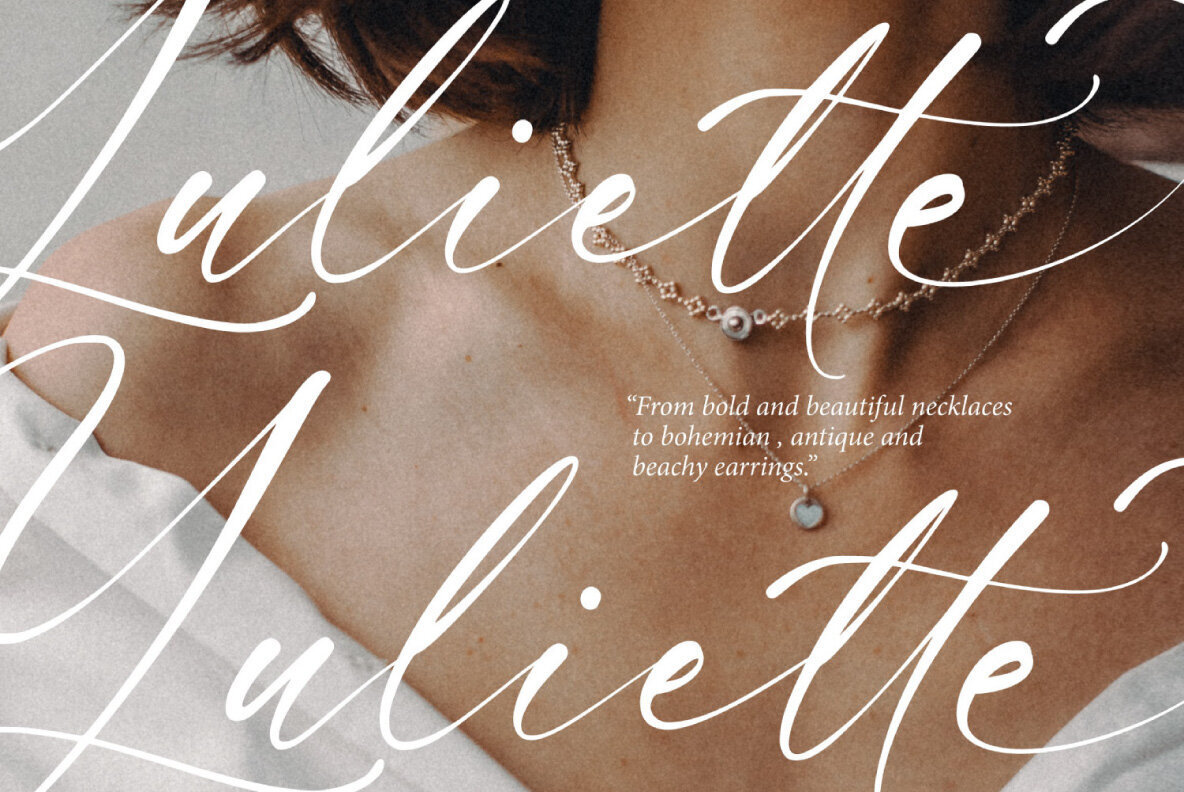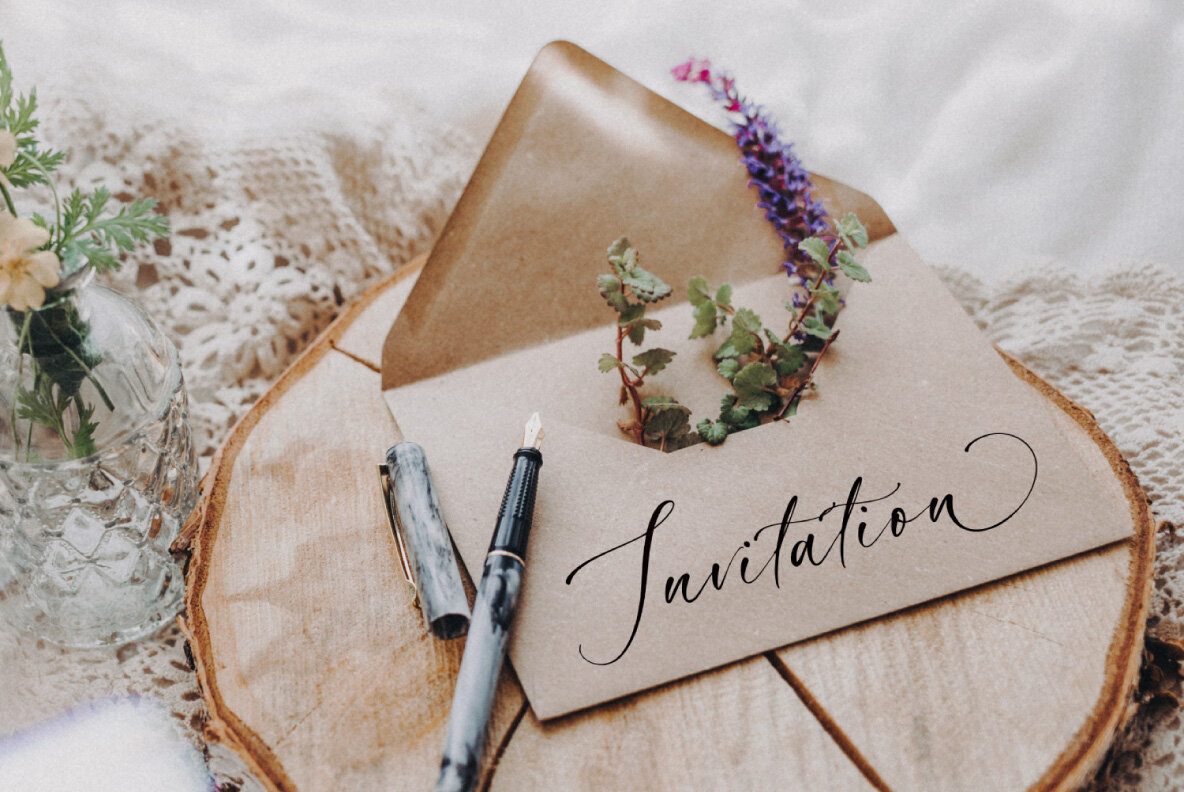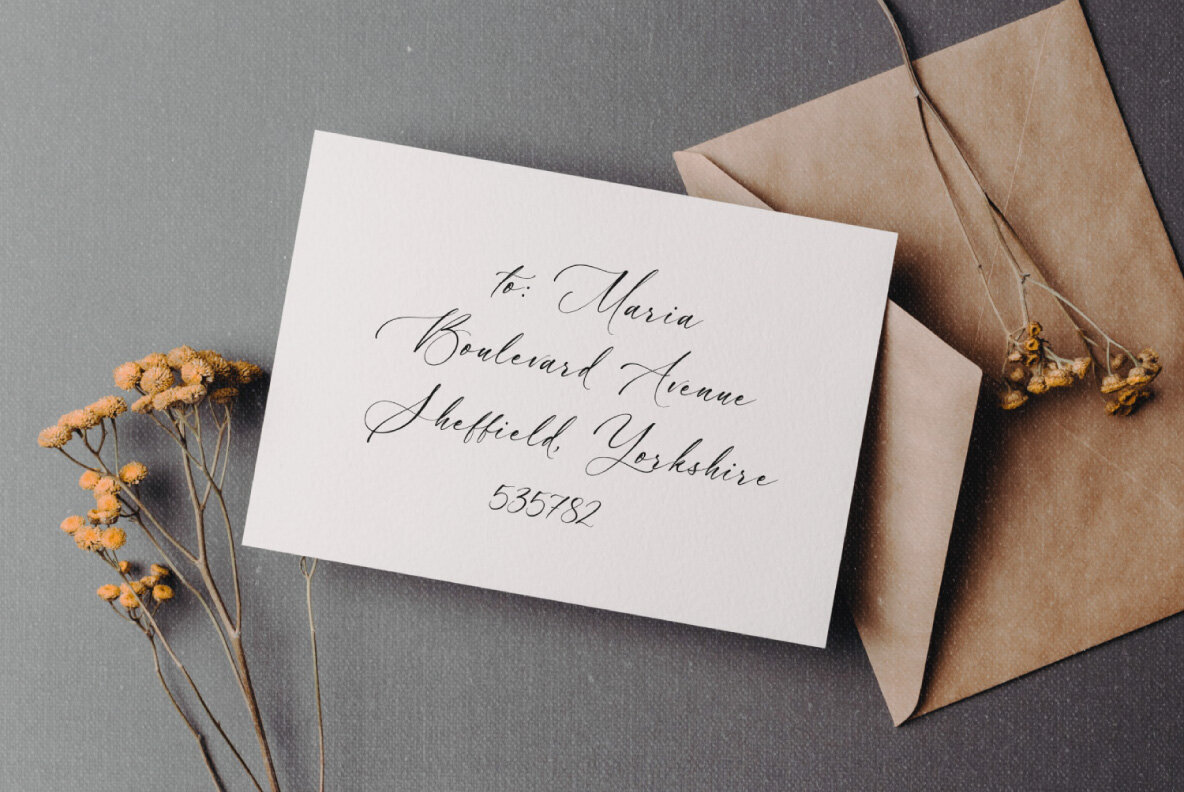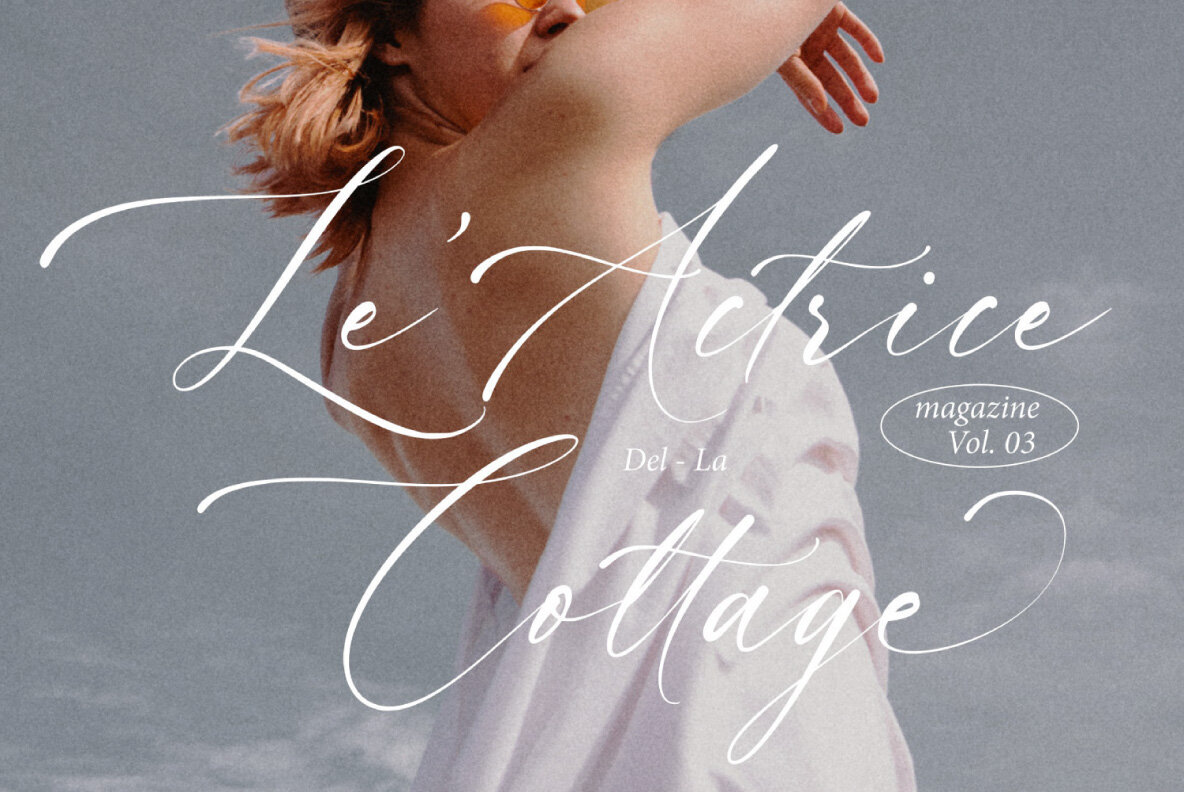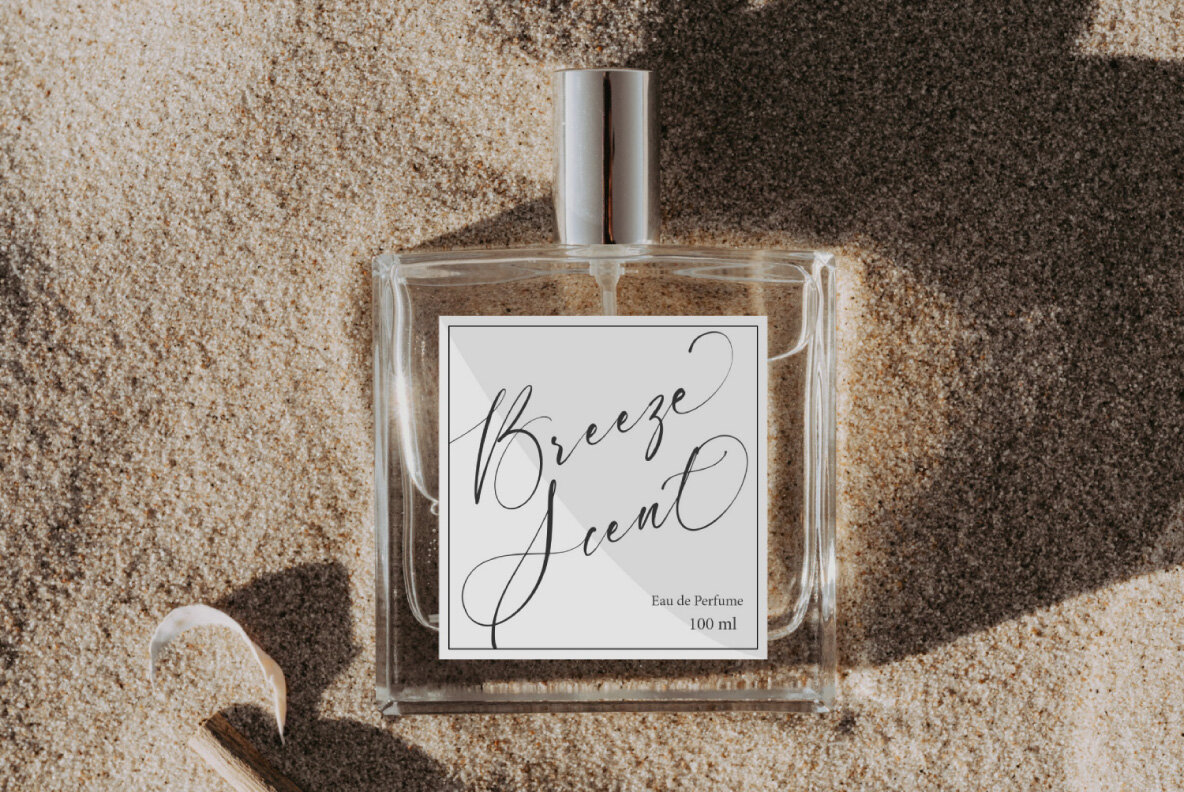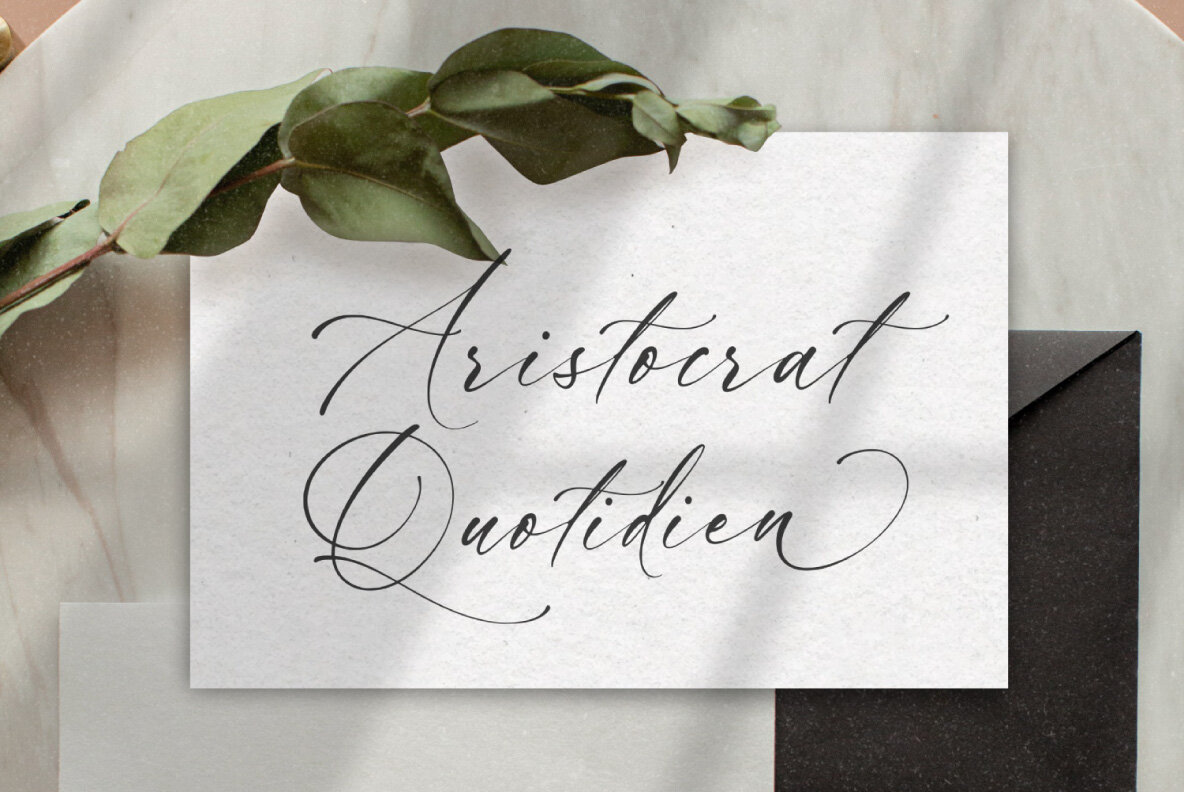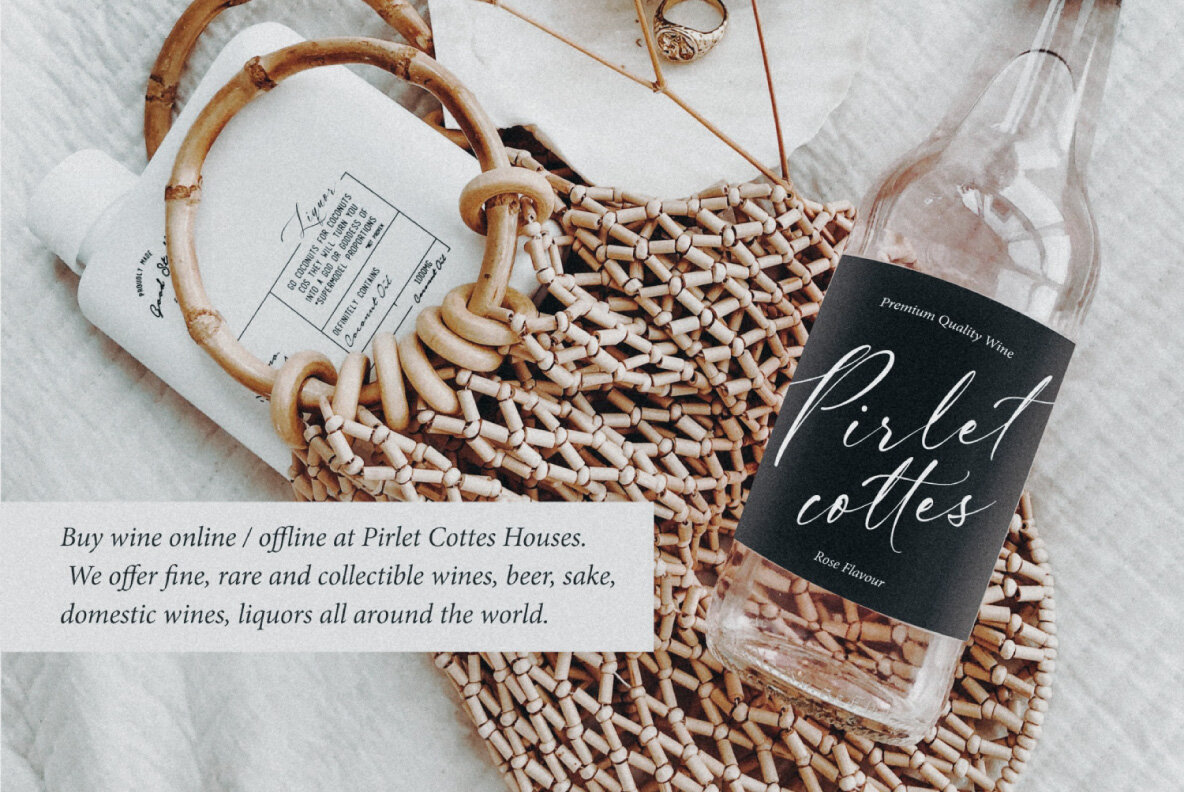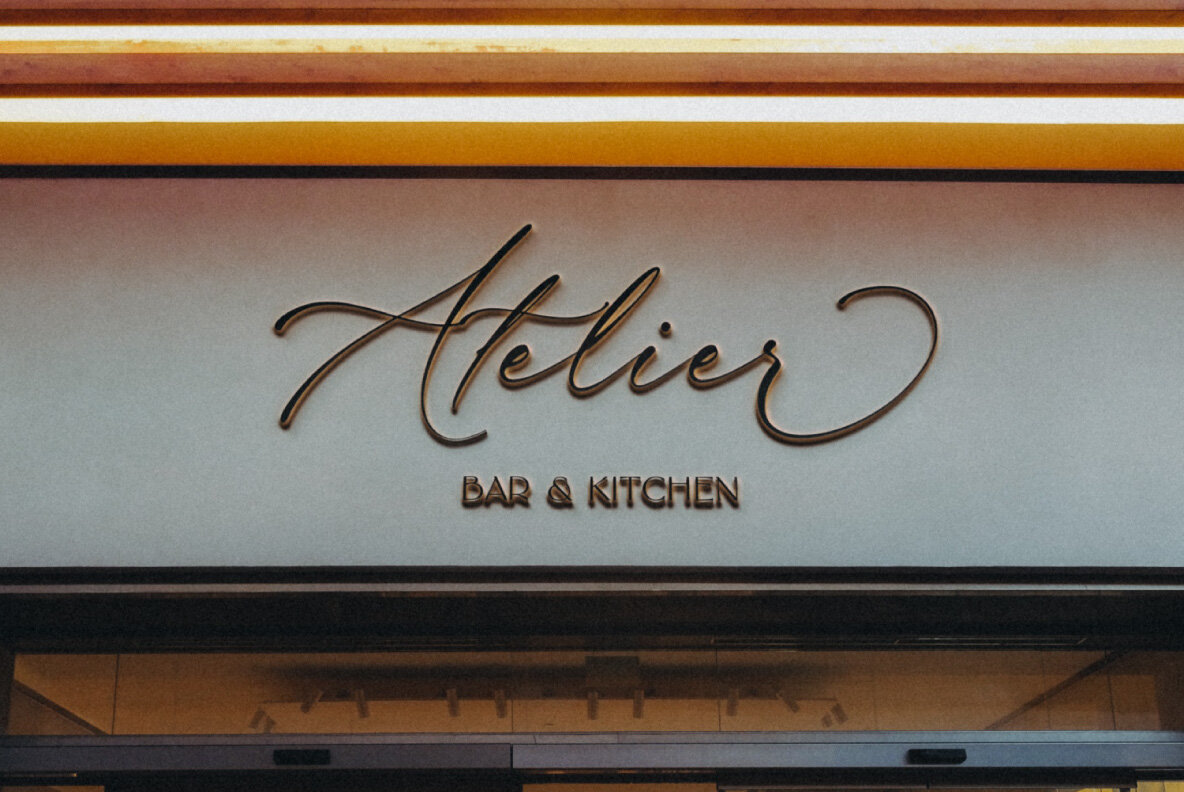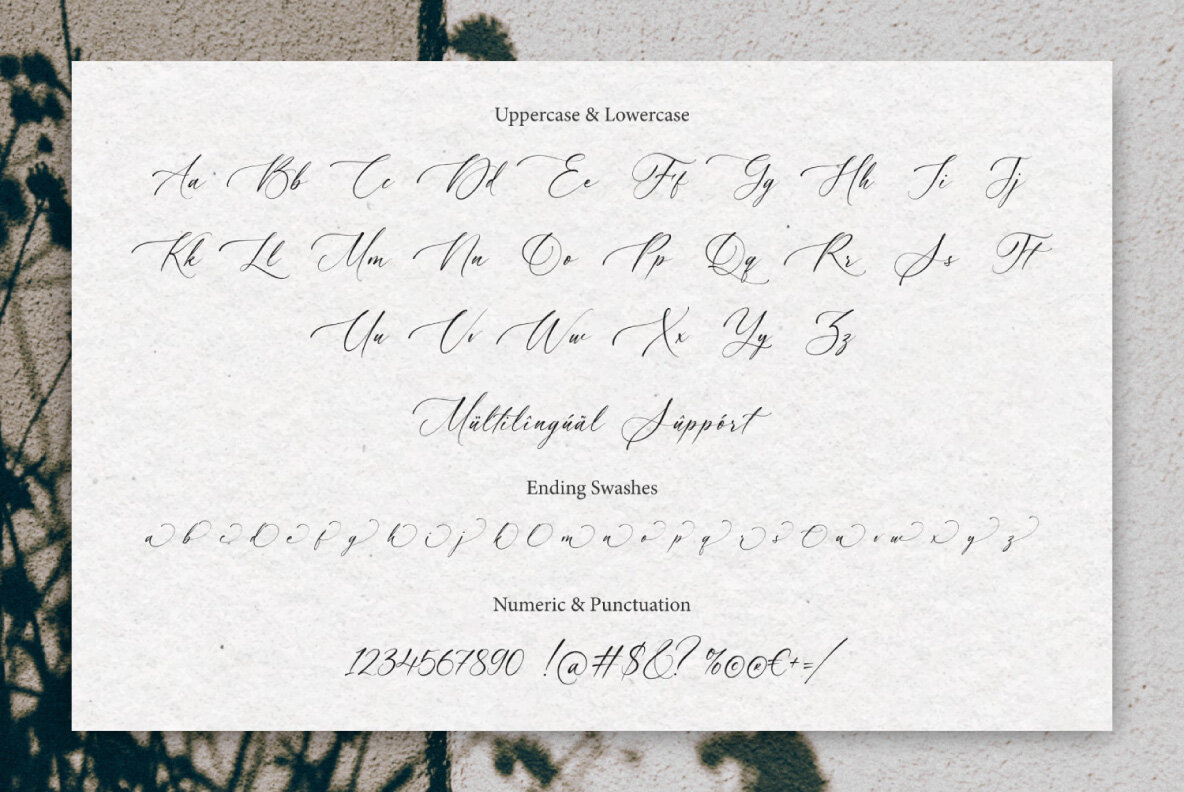
Adoretta Font
Adoretta Regular
Introducing Adoretta, an elegant and chic calligraphy font that is perfect for many design needs. Each letter is deliberately imperfect to give it a more natural and charming look.
Adoretta is ideal for merchandising, T-shirts, titles, book covers, social media posts, websites, events, and much more. With its beautiful flow and feminine style, Adoretta is sure to add a touch of class to any project.